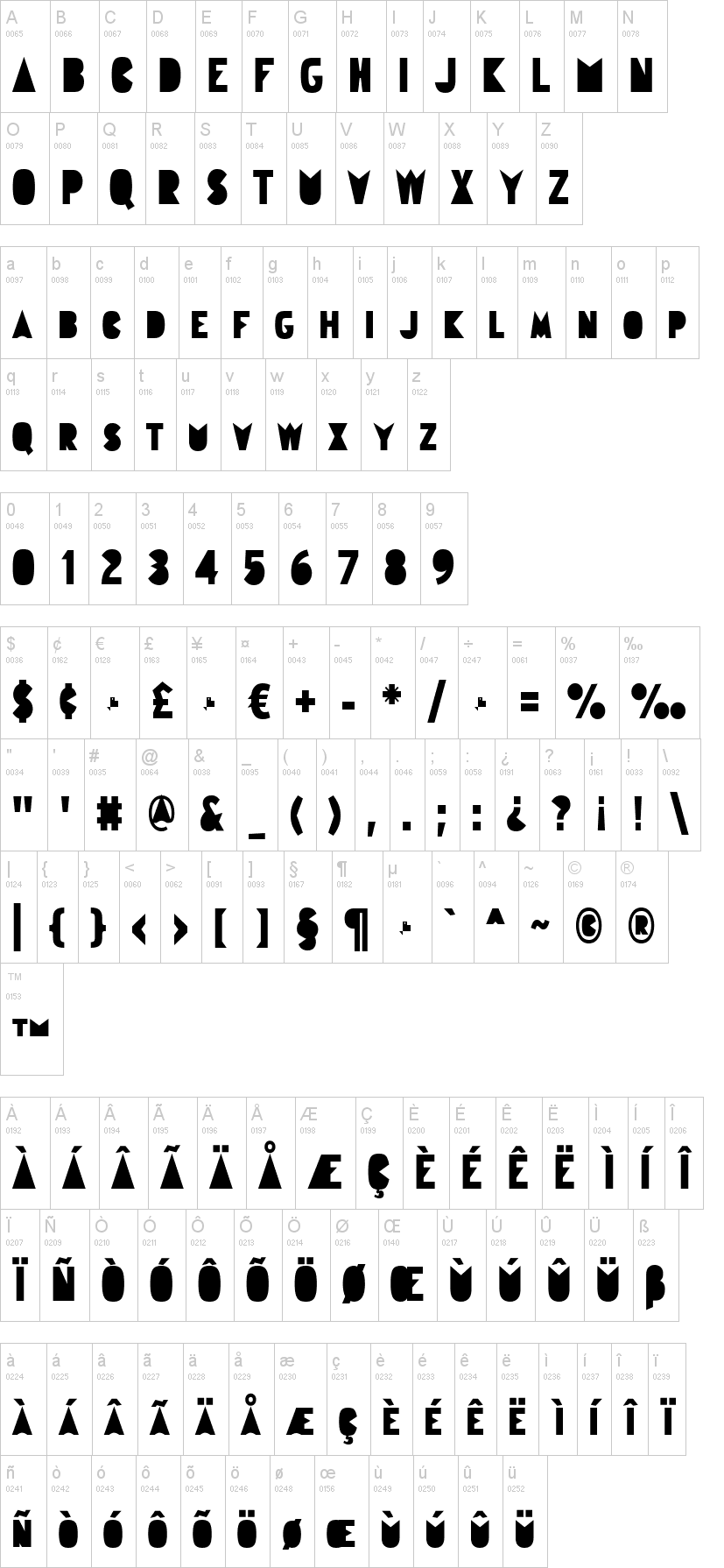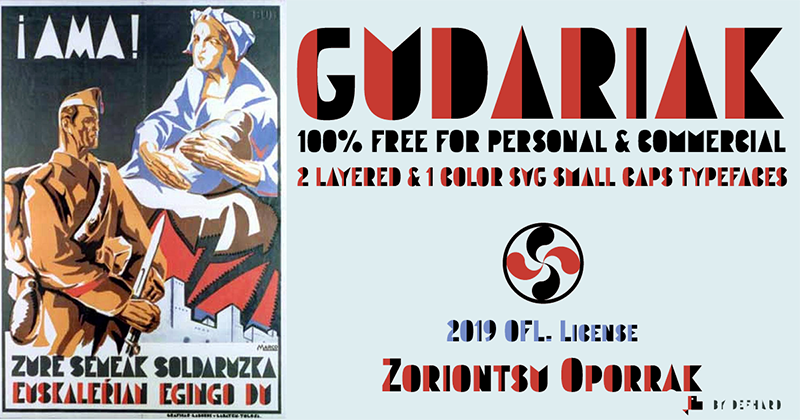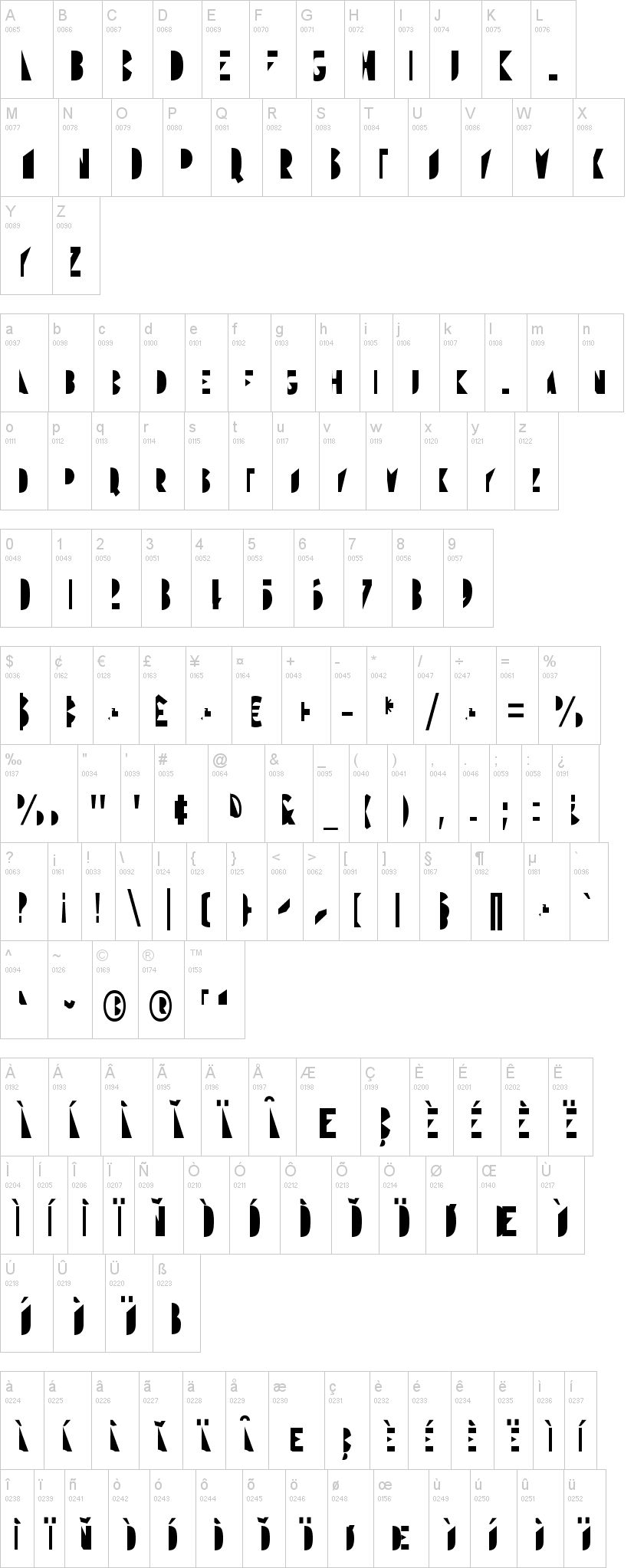
Gudariak-Txano.ttfNote of the authorVicente Ballester Marco (Valencia 1887 - 1980) was a graphic designer and Valencian posterist affiliated with the CNT who created political propaganda posters of clear modernist and post-cubist influence during the Spanish Civil War.
The Gudariak typeface is inspired mainly by one of the posters he made for the Government of Euskadi and also in others where the author continues to explore this particular typographic style.
The typography is available in 3 styles, the regular version and the cut (Txano) combinable by layers. Also a version in Color SVG with the original red and black colors of the poster. The lowercase are small caps.